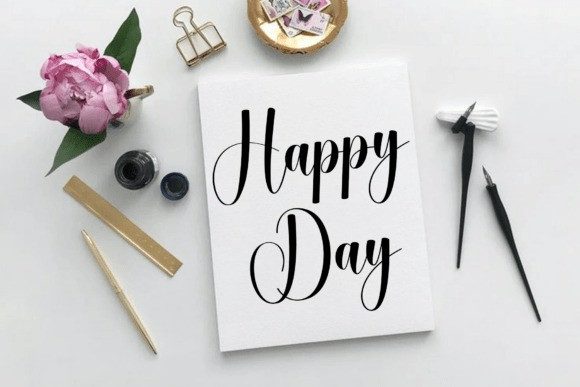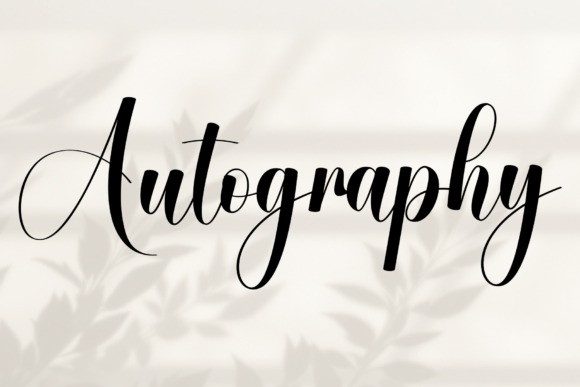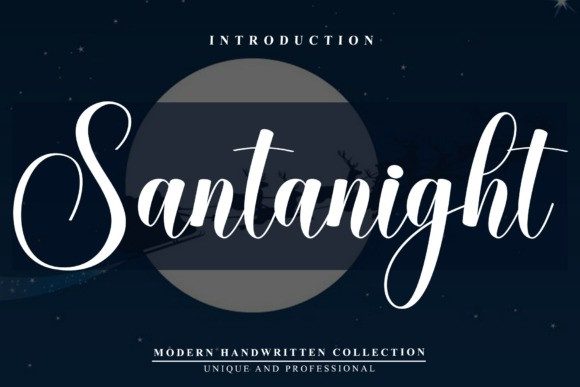
Santanight Font
Santanight Font is a modern handwritten font with an elegant and feminine flair. It features flowing curves, heart details, and a natural script style, making it perfect for branding, wedding invitations, logos, packaging, social media posts, and more. With a full set of upper and lowercase letters, numbers, punctuation, and multilingual support, this font brings charm and sophistication to any creative project.